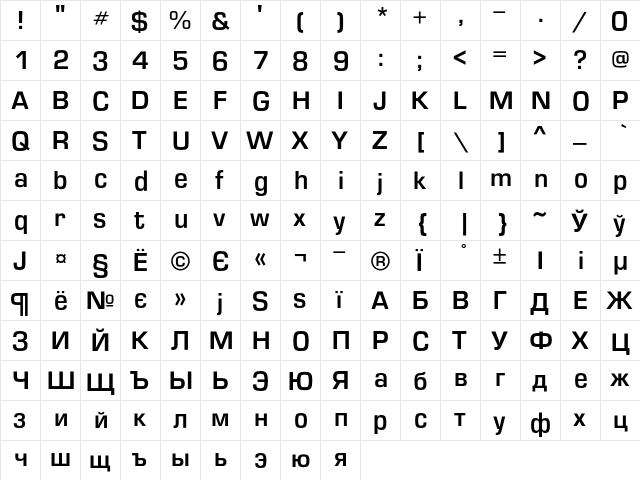
EuropeDemi Regular
Design Context for EuropeDemi Typeface
EuropeDemi takes a measured approach to typography — its balanced proportions and neutral character make it a reliable workhorse for both digital and print work.